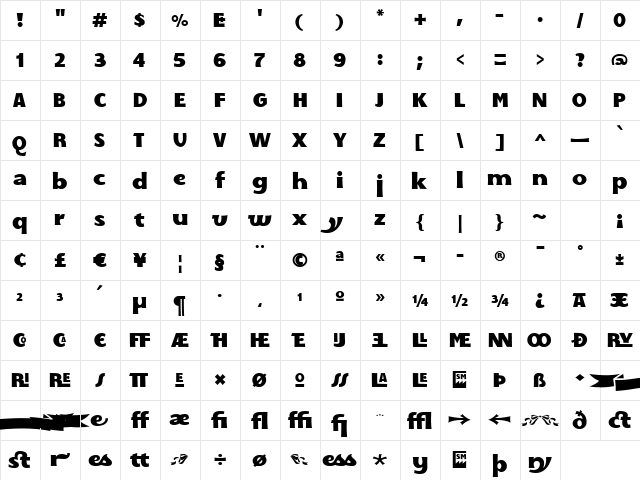
MEgalopolis Special
Design Context for MEgalopolis Typeface
MEgalopolis offers clean, dependable letterforms without strong stylistic allegiance, making it a practical choice for designers who need flexibility.
Pro Tip: Pair MEgalopolis with a font of contrasting weight or personality to build a more expressive typographic hierarchy.